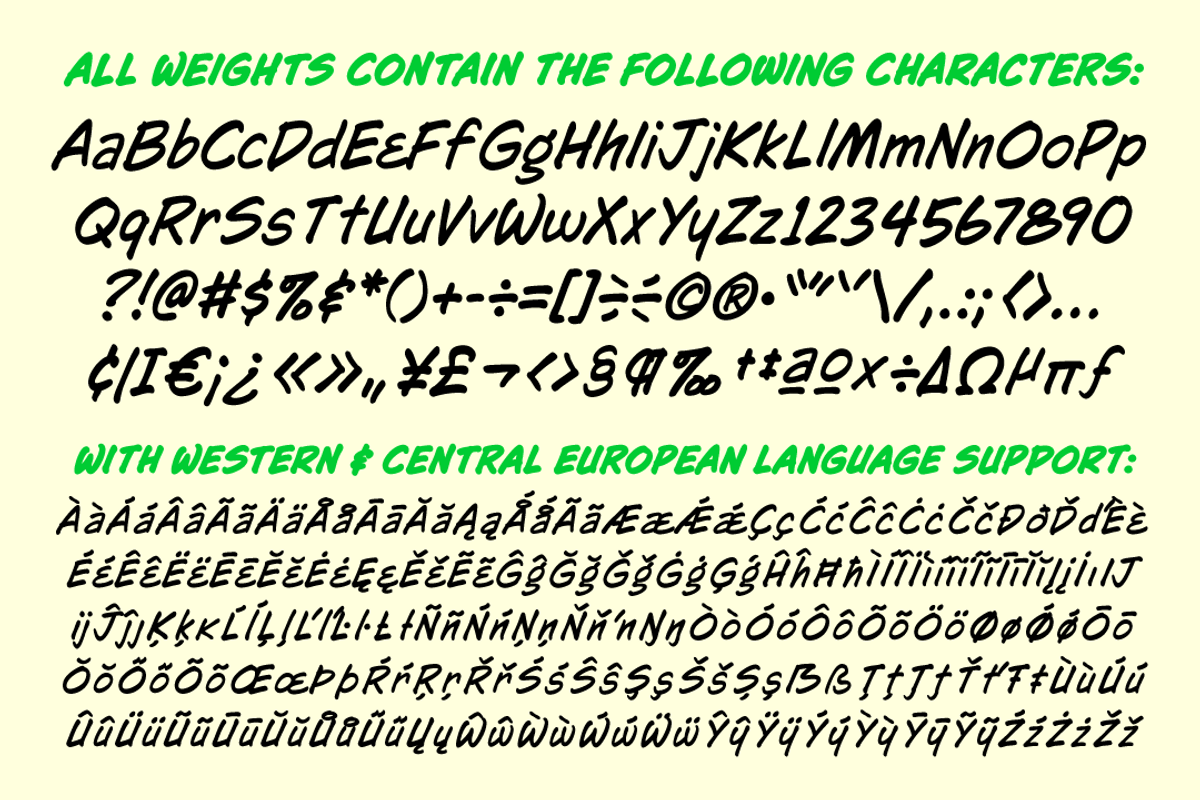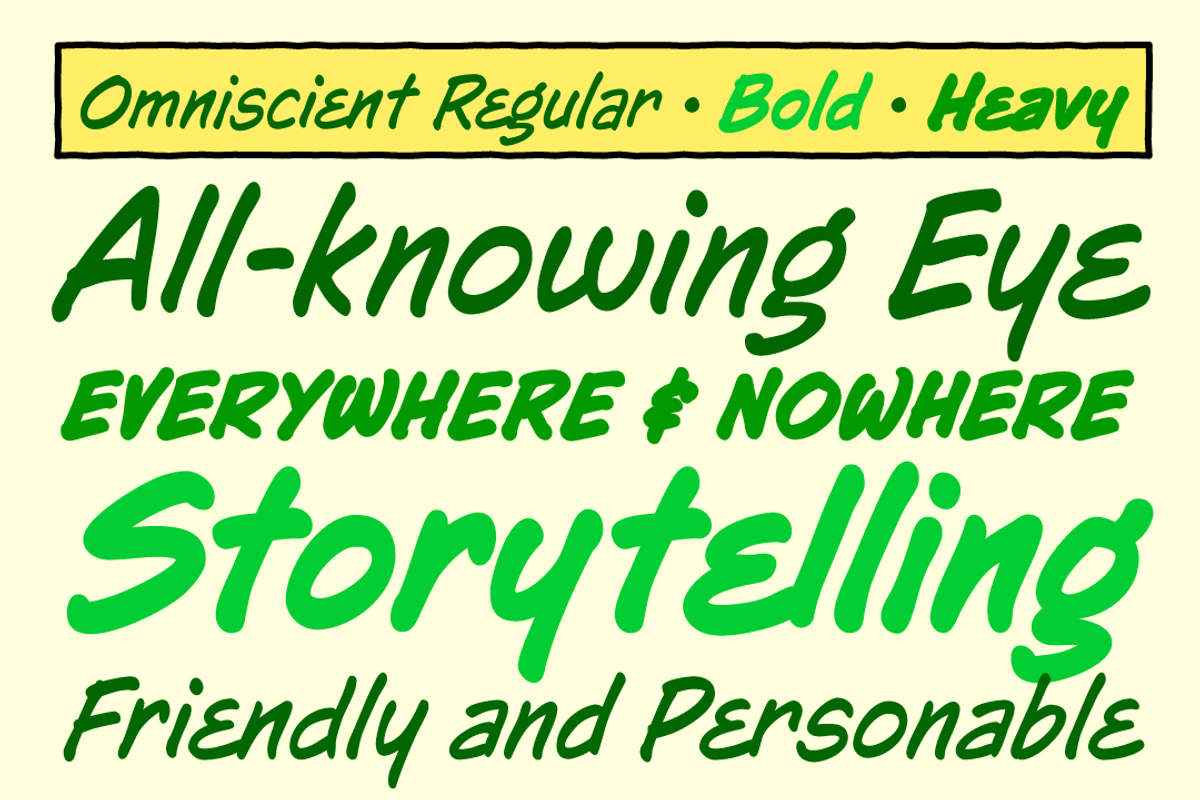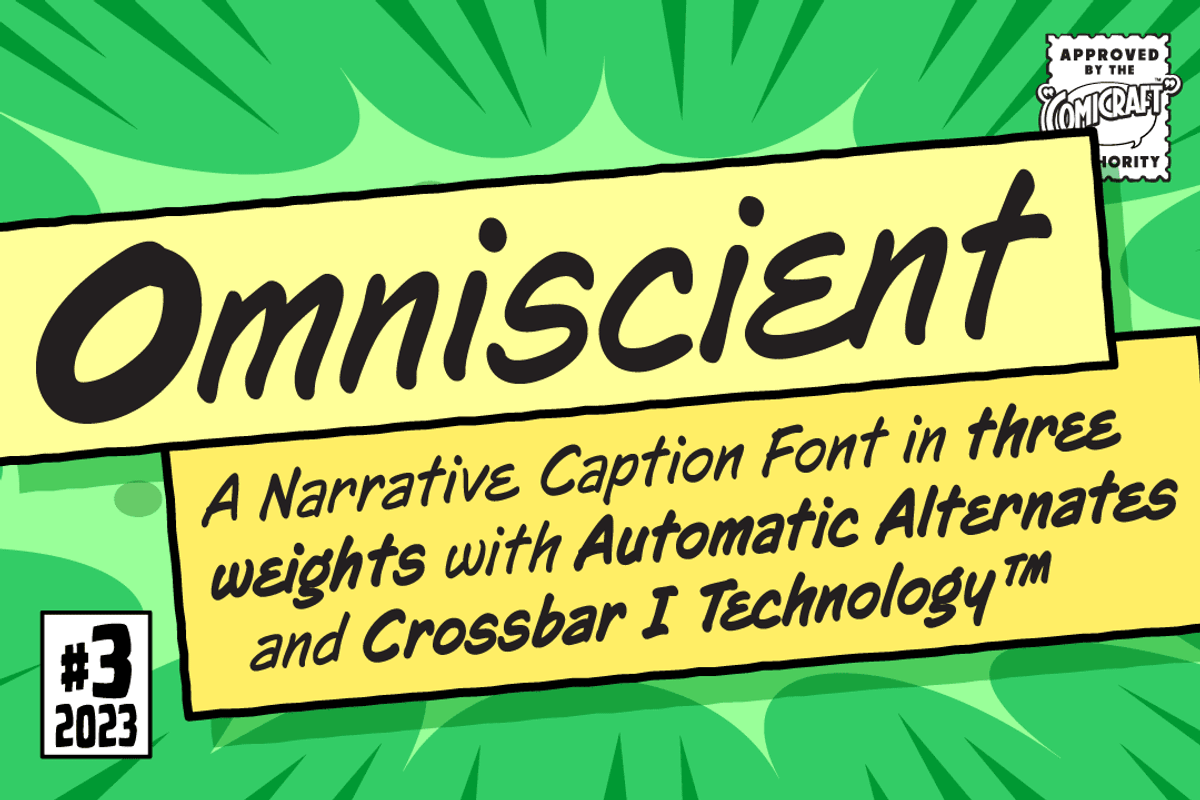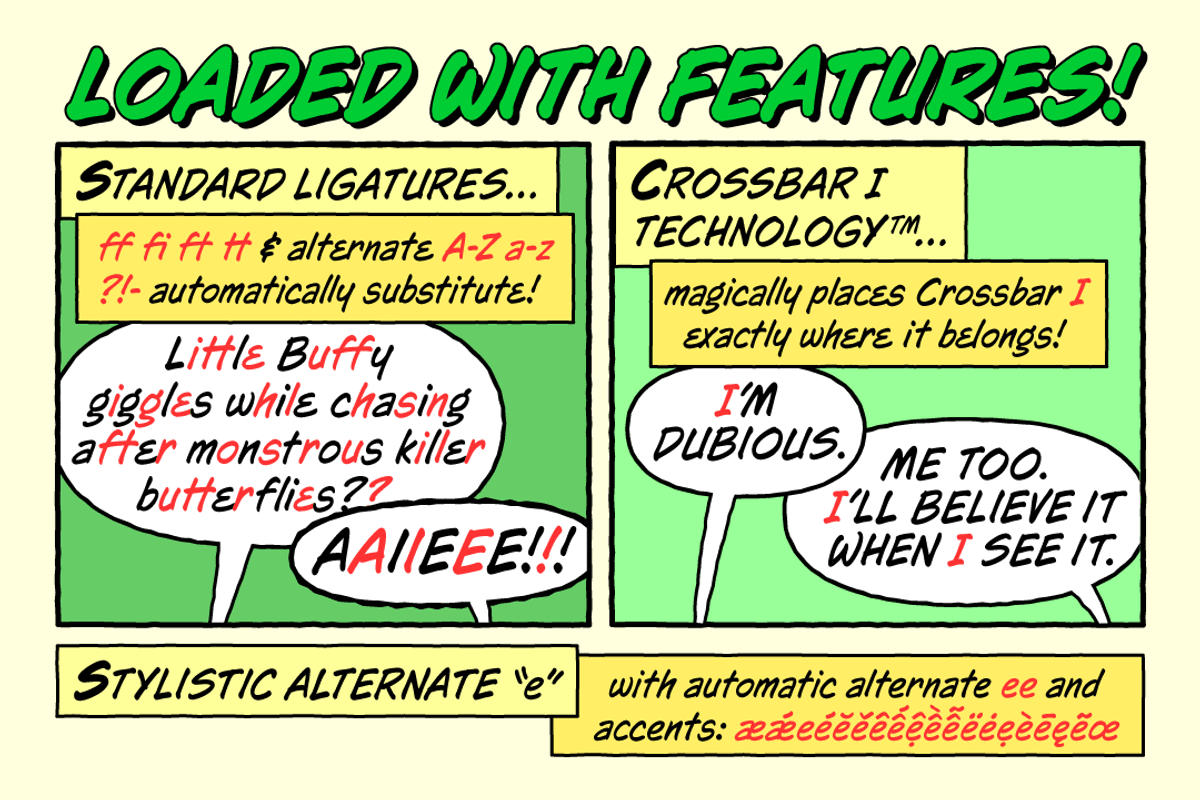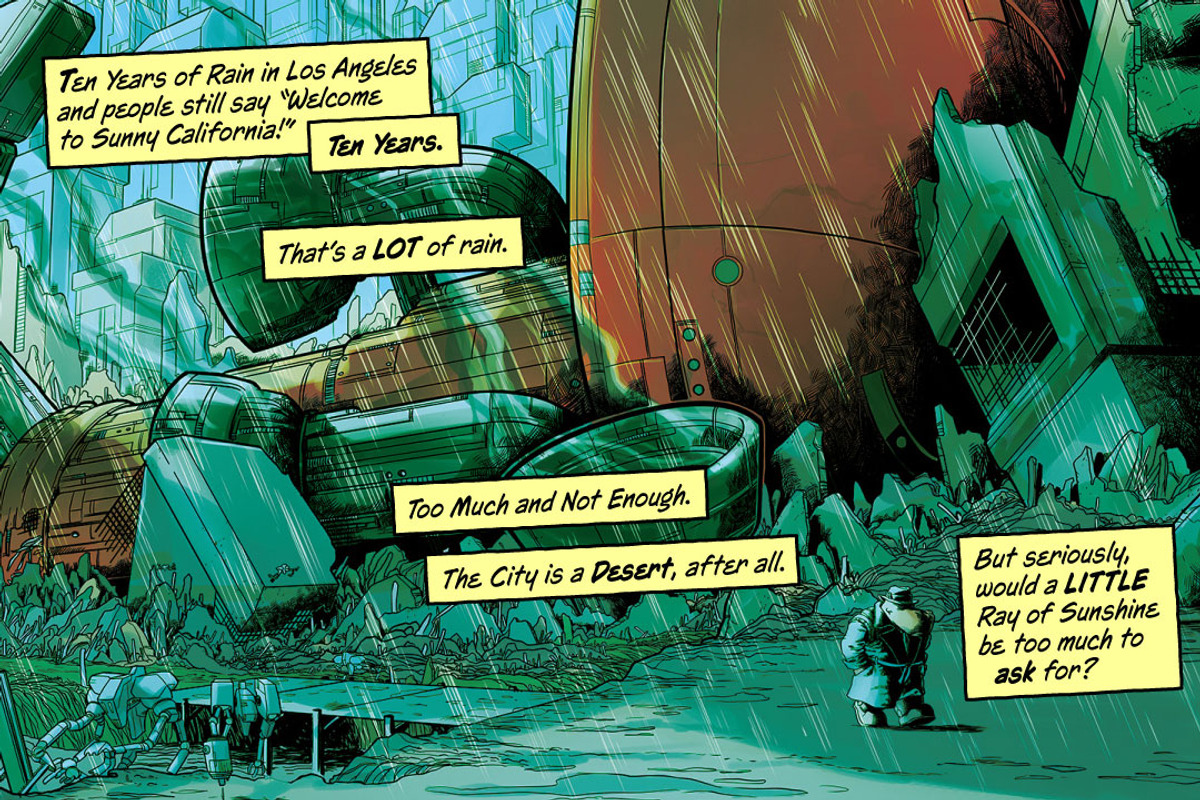
Omniscient - comic book narrator
Omniscient is a narrative font that sees all… it’s everywhere and nowhere, the storyteller and the story, upper and lower case. This godlike font can be first person AND third person, friendly or serious, personable AND impersonal. It knows all the details but will only reveal them when it serves the narrative.
The classical characters in Omniscient are all knowing, all seeing, and can even be all singing, all dancing on occasion. Even gods like to let their hair down and have fun.
Features three weights with upper & lowercase alphabets, support for Western & Central Europe, automatic alternates, Stylistic Alternates & Crossbar I Technology™